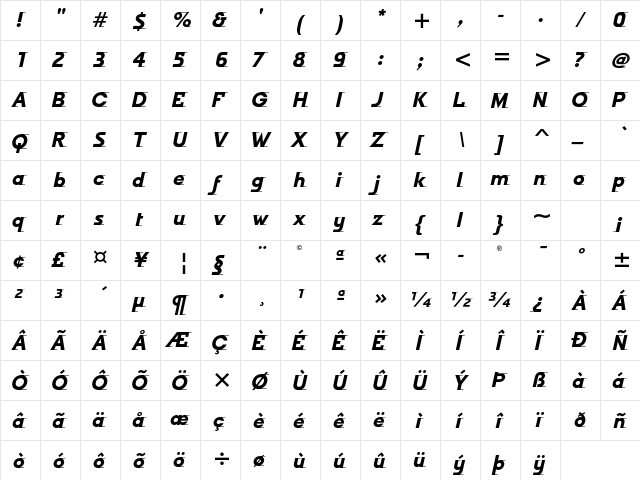
Odyssee ITC Std Bold Italic Font Preview
| Designer | Roselyne Besnard and Michel Besnard |
Design Context for Odyssee ITC Std Typeface
Odyssee ITC Std takes a measured approach to typography — its balanced proportions and neutral character make it a reliable workhorse for both digital and print work. Its italic angle brings a sense of urgency and motion to the letterforms. The heavy weight commands attention and anchors typographic hierarchies.
Pro Tip: Use Odyssee ITC Std for emphasis, pull quotes, and subheadings where its slanted energy can add rhythm to the layout.